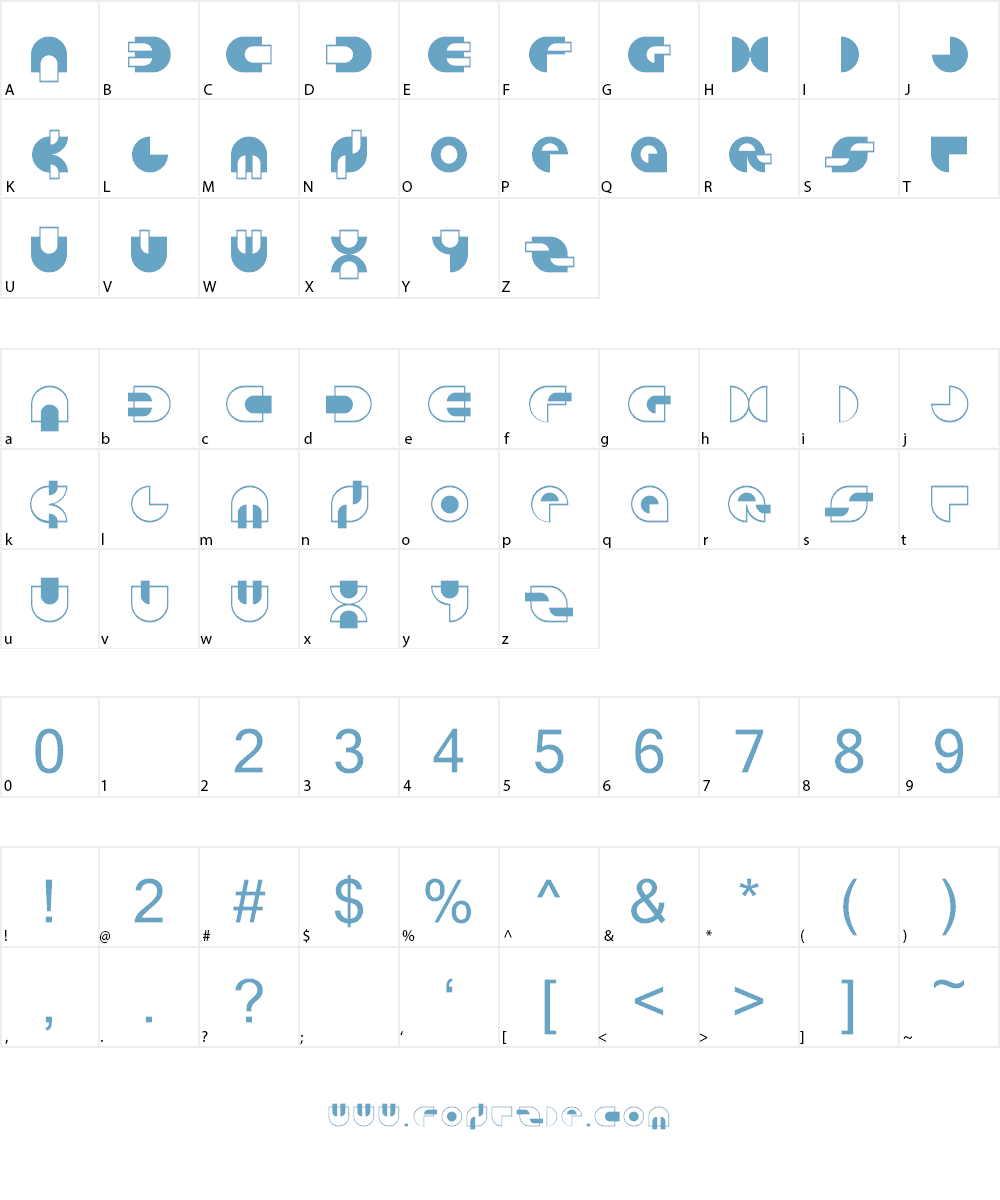
HierArc is a quick font I designed for no good reason. I think it looks interesting enough to be used on a poster or flyer -- anywhere you want to get attention, and where readability isn't a big concern.